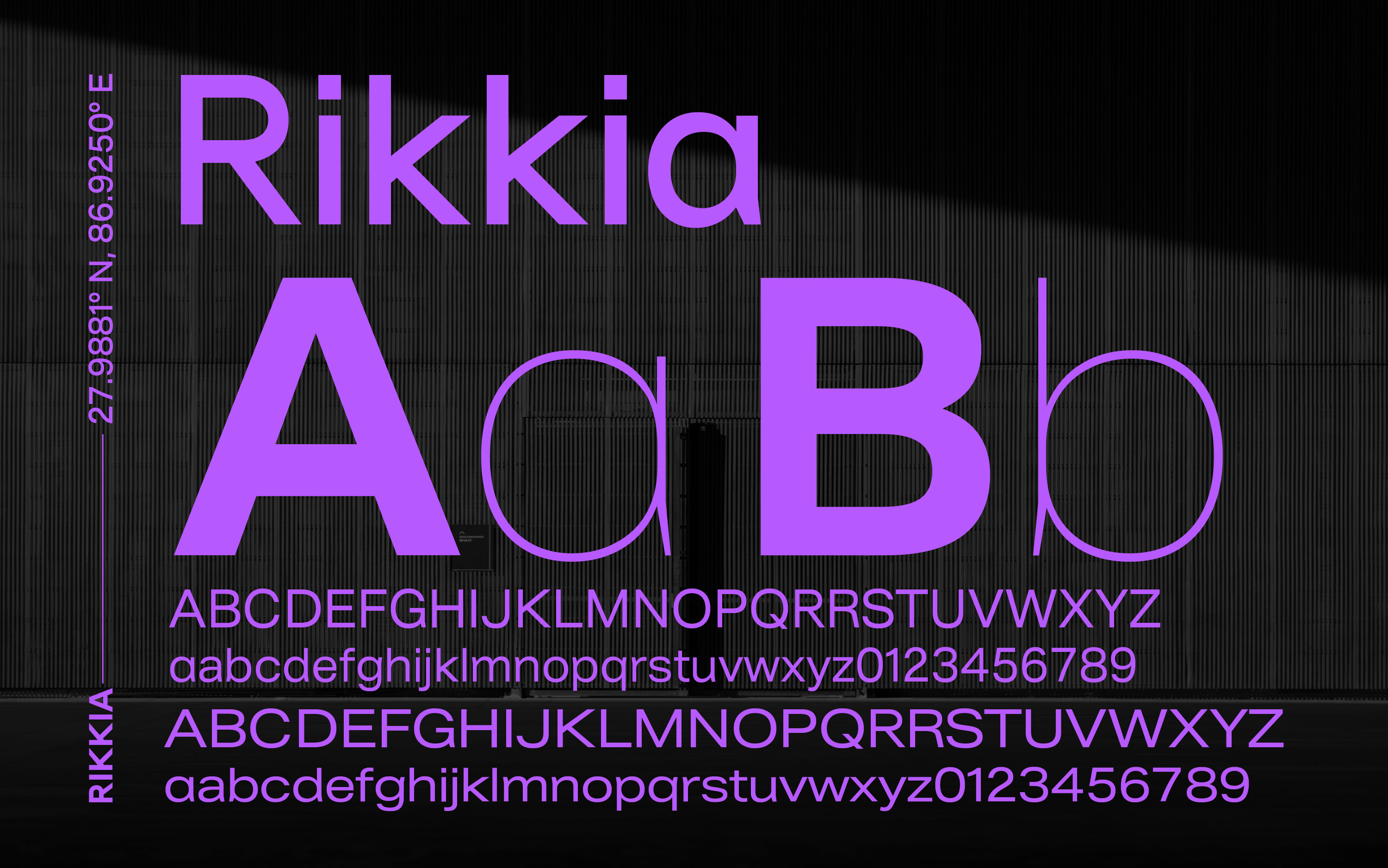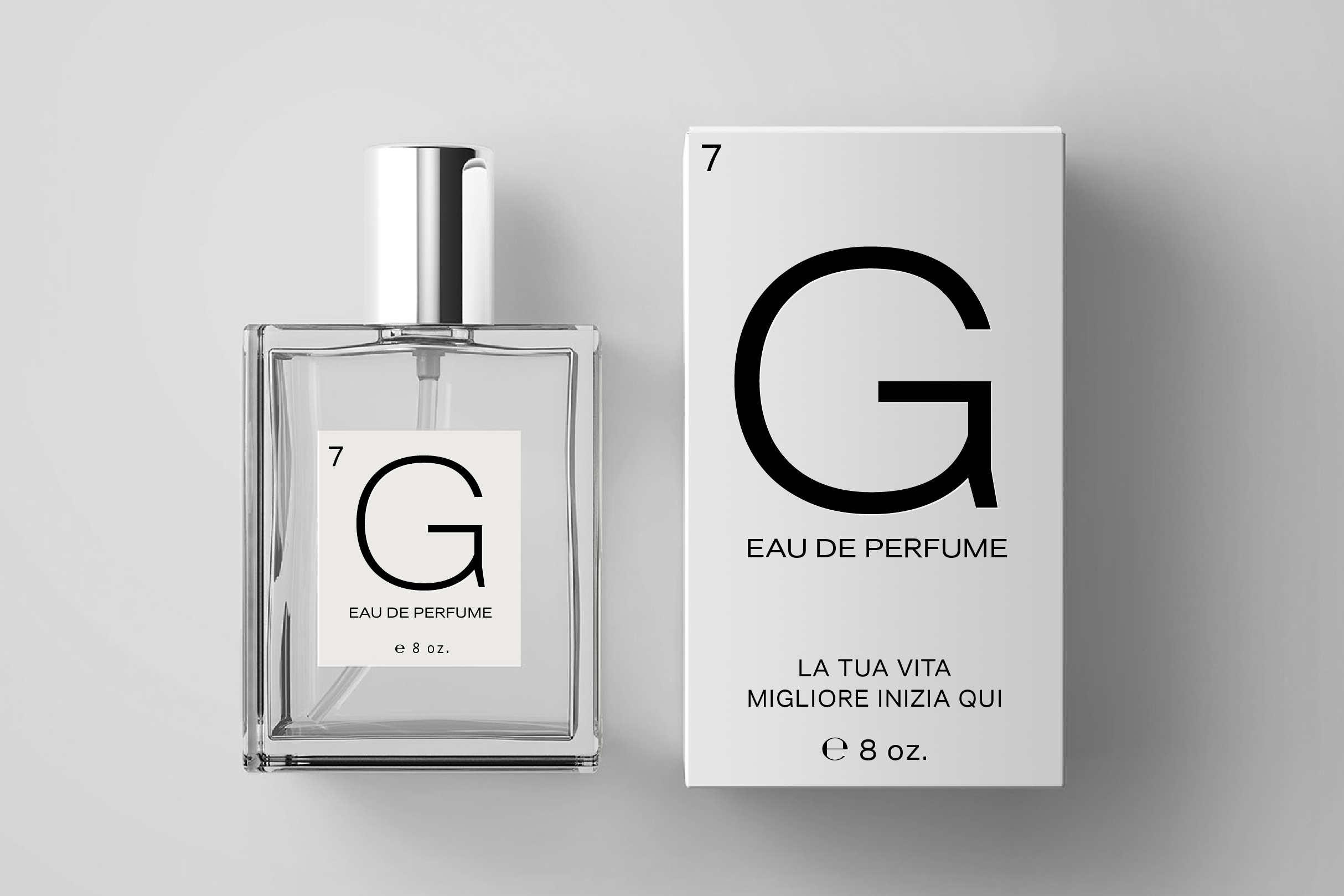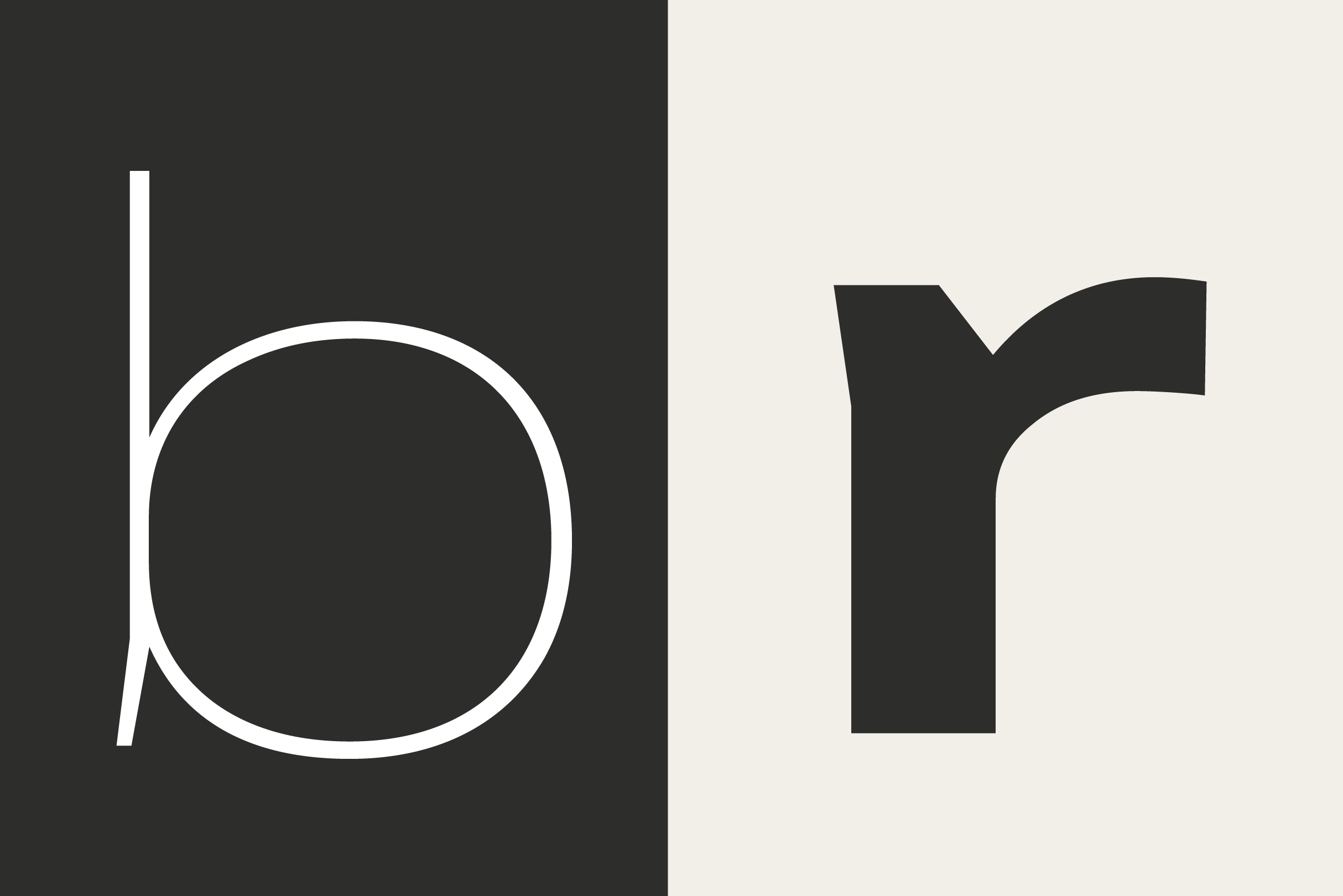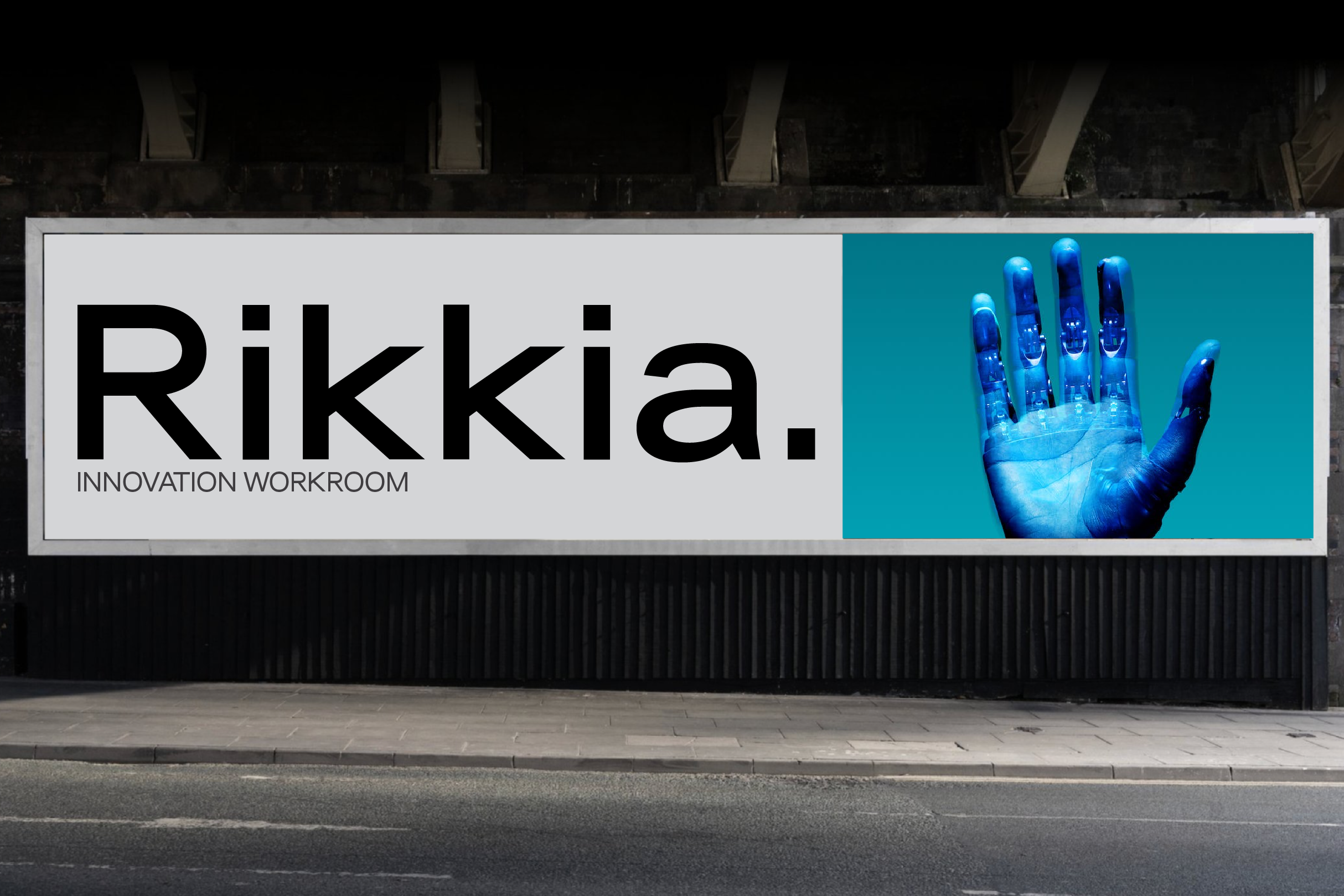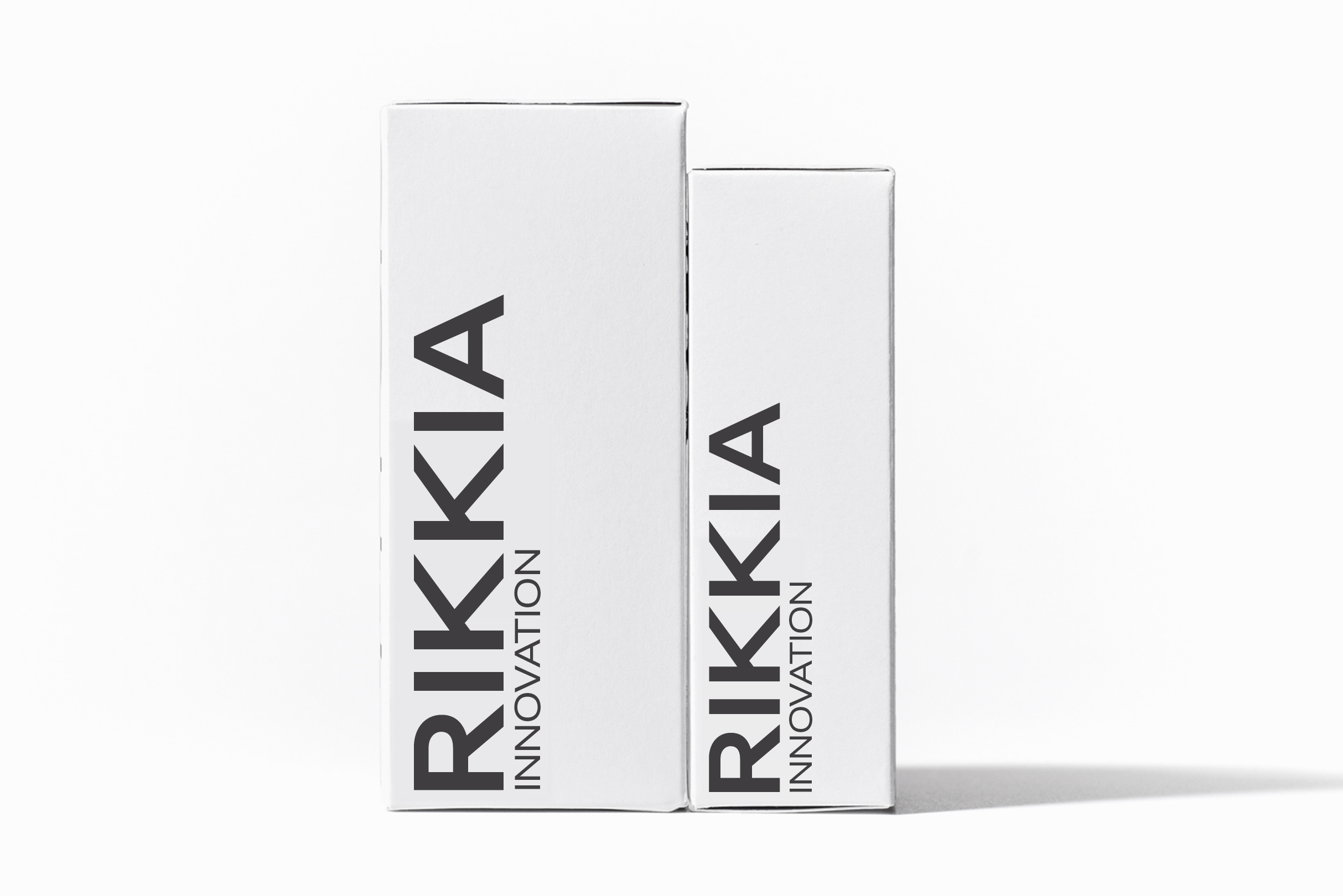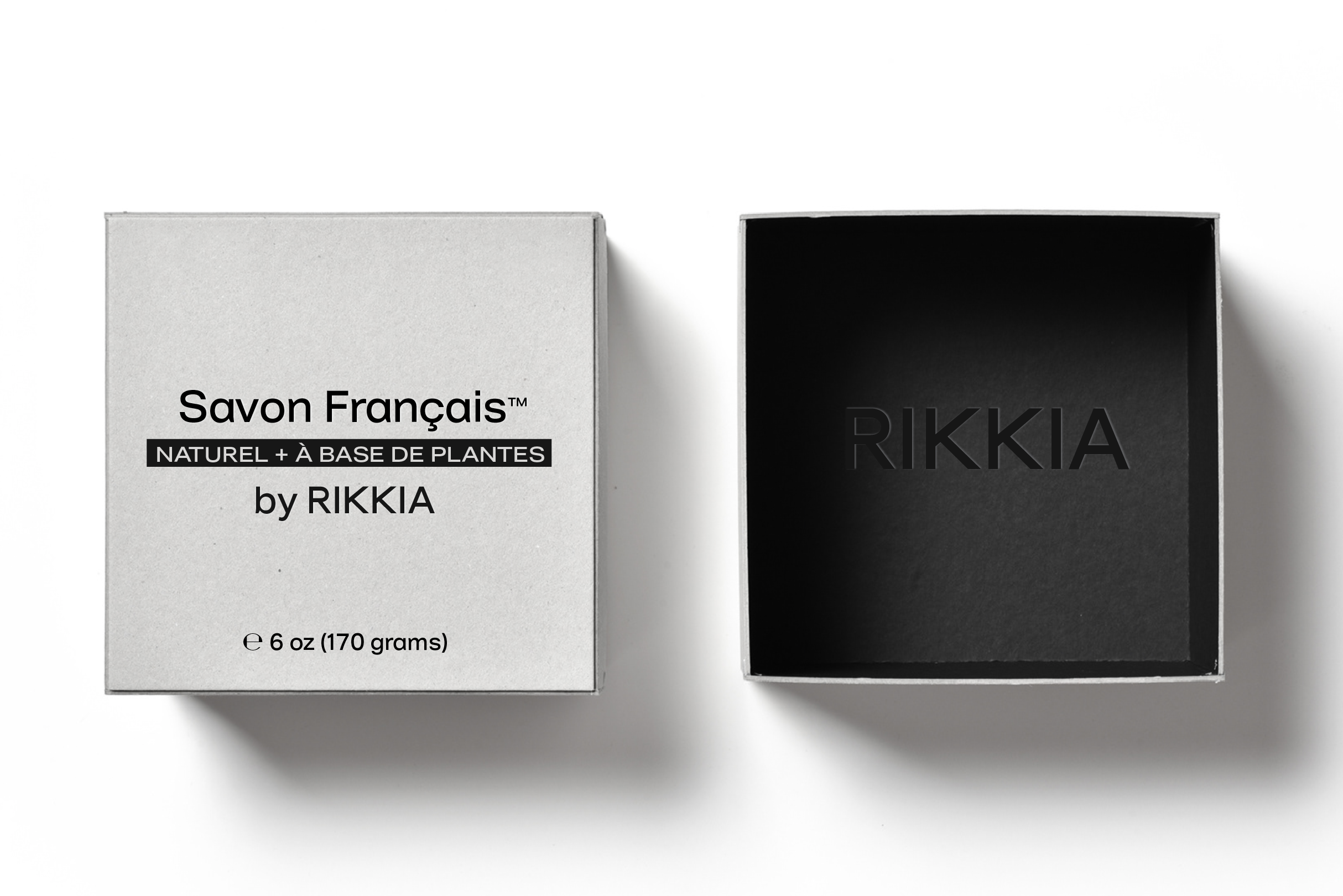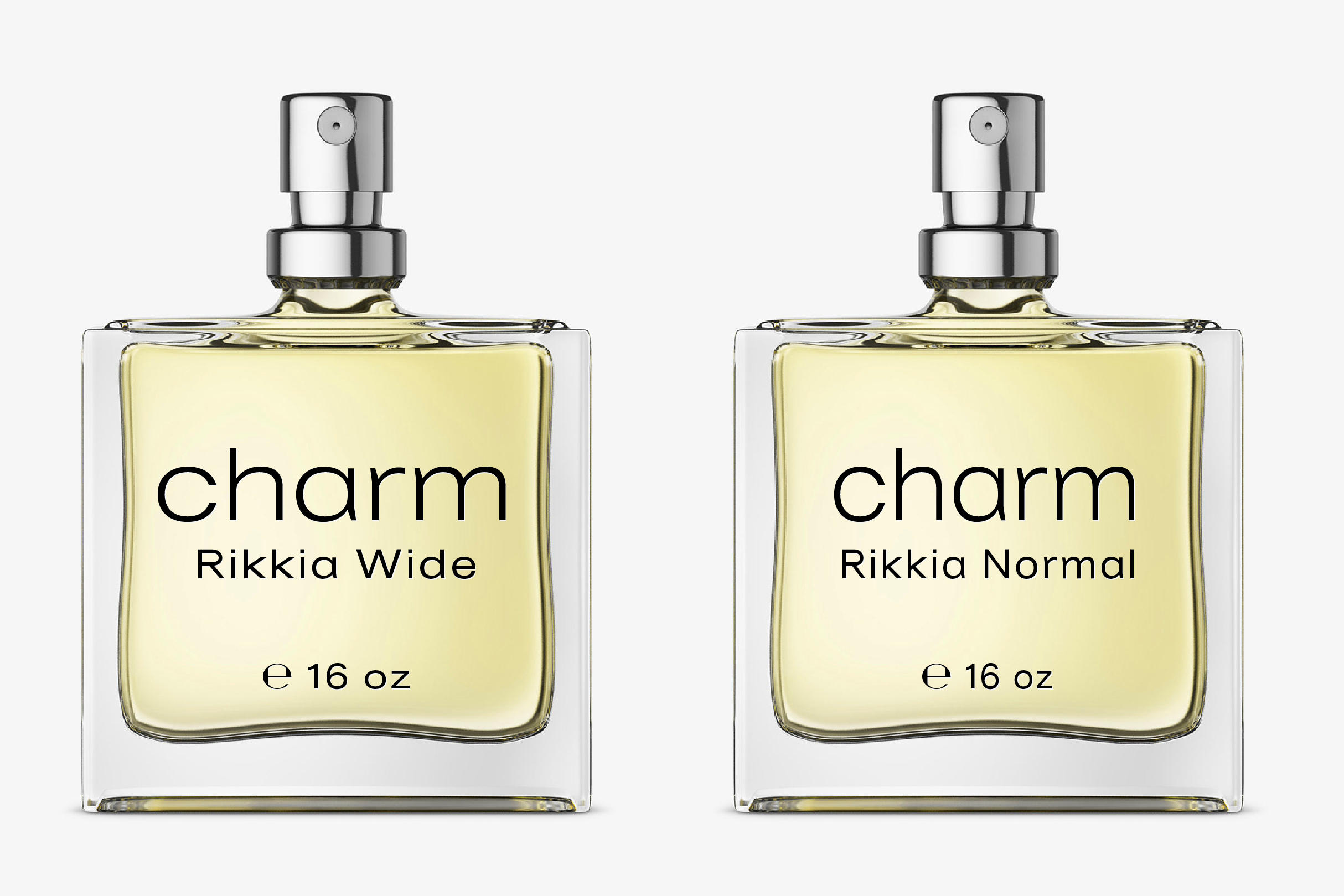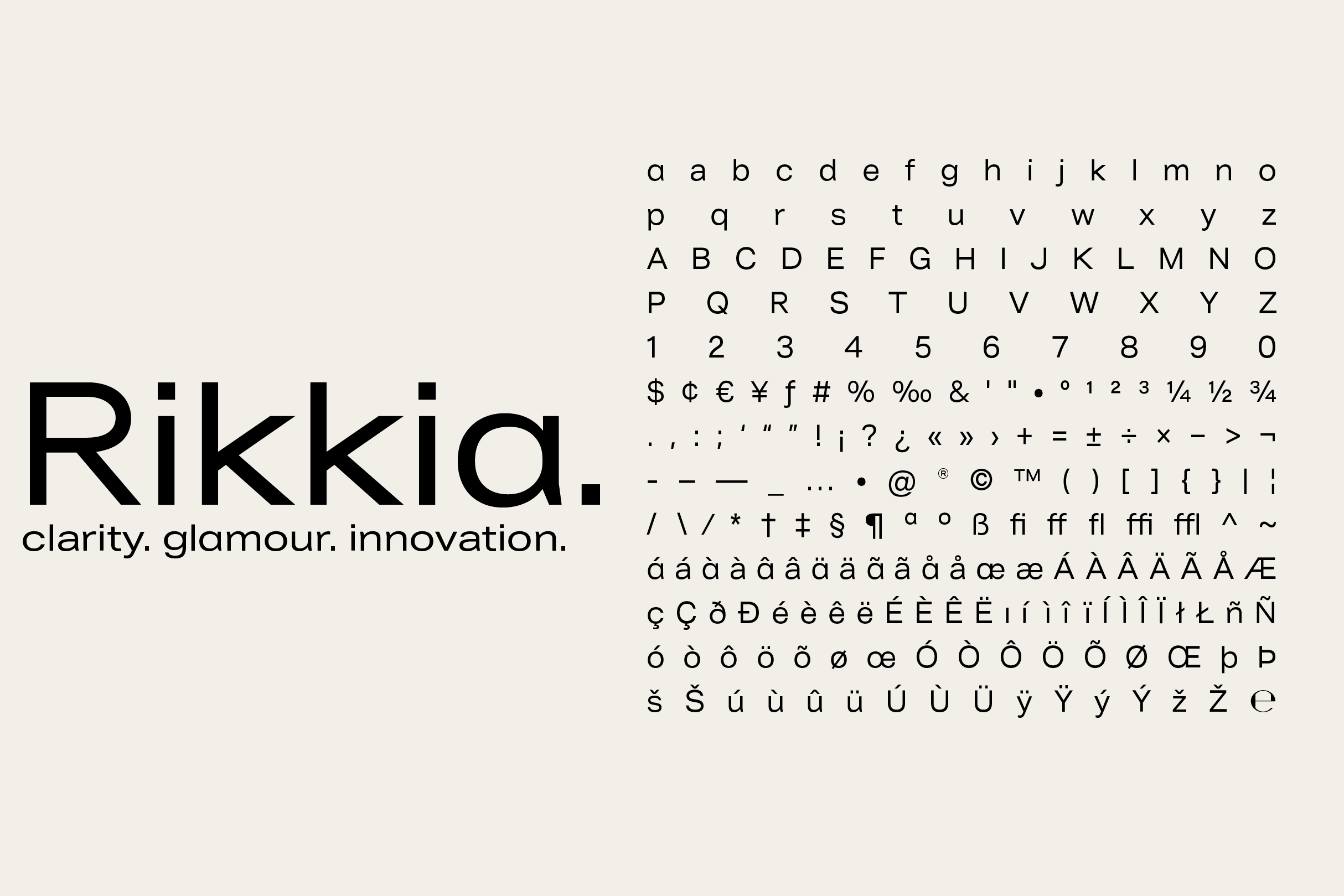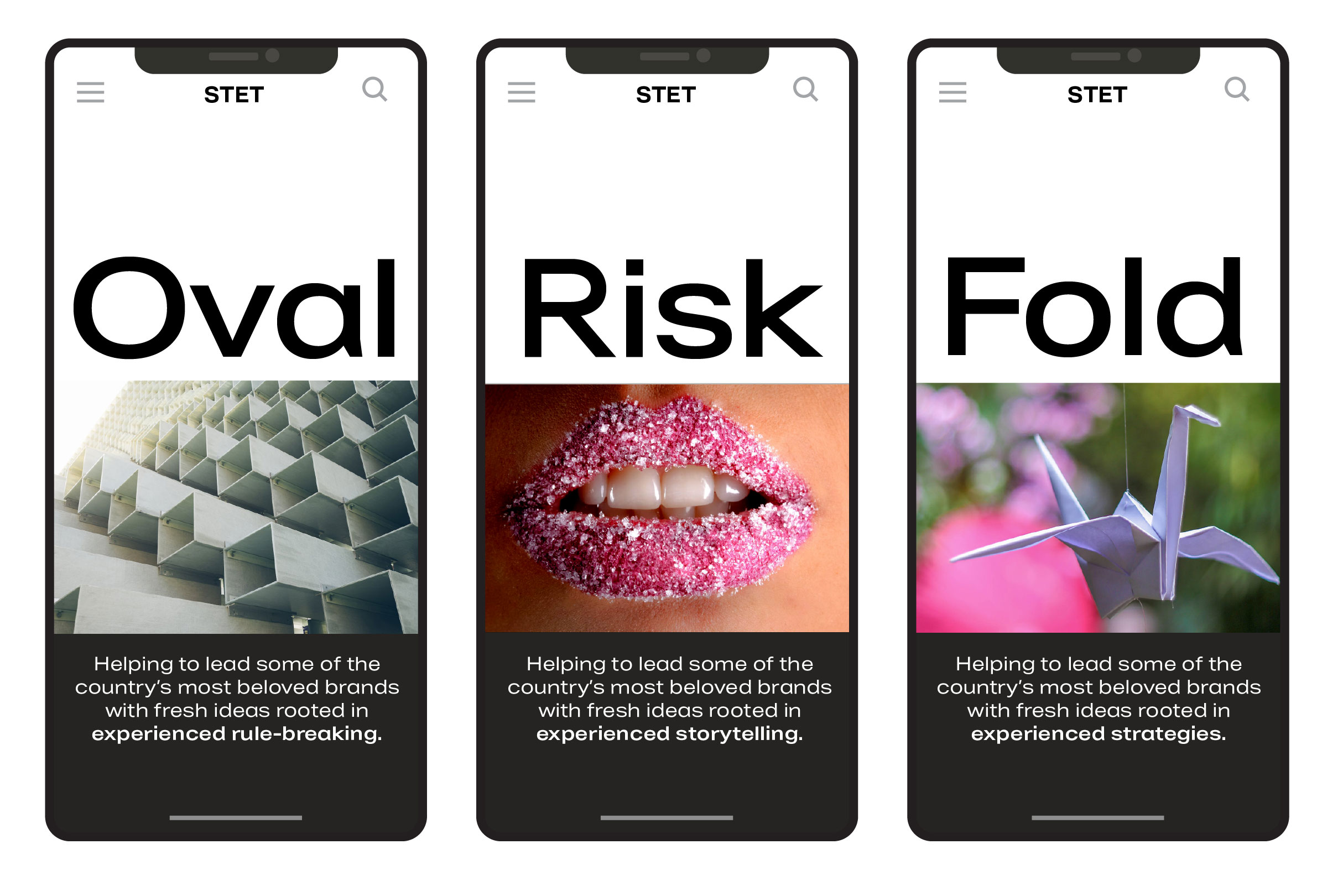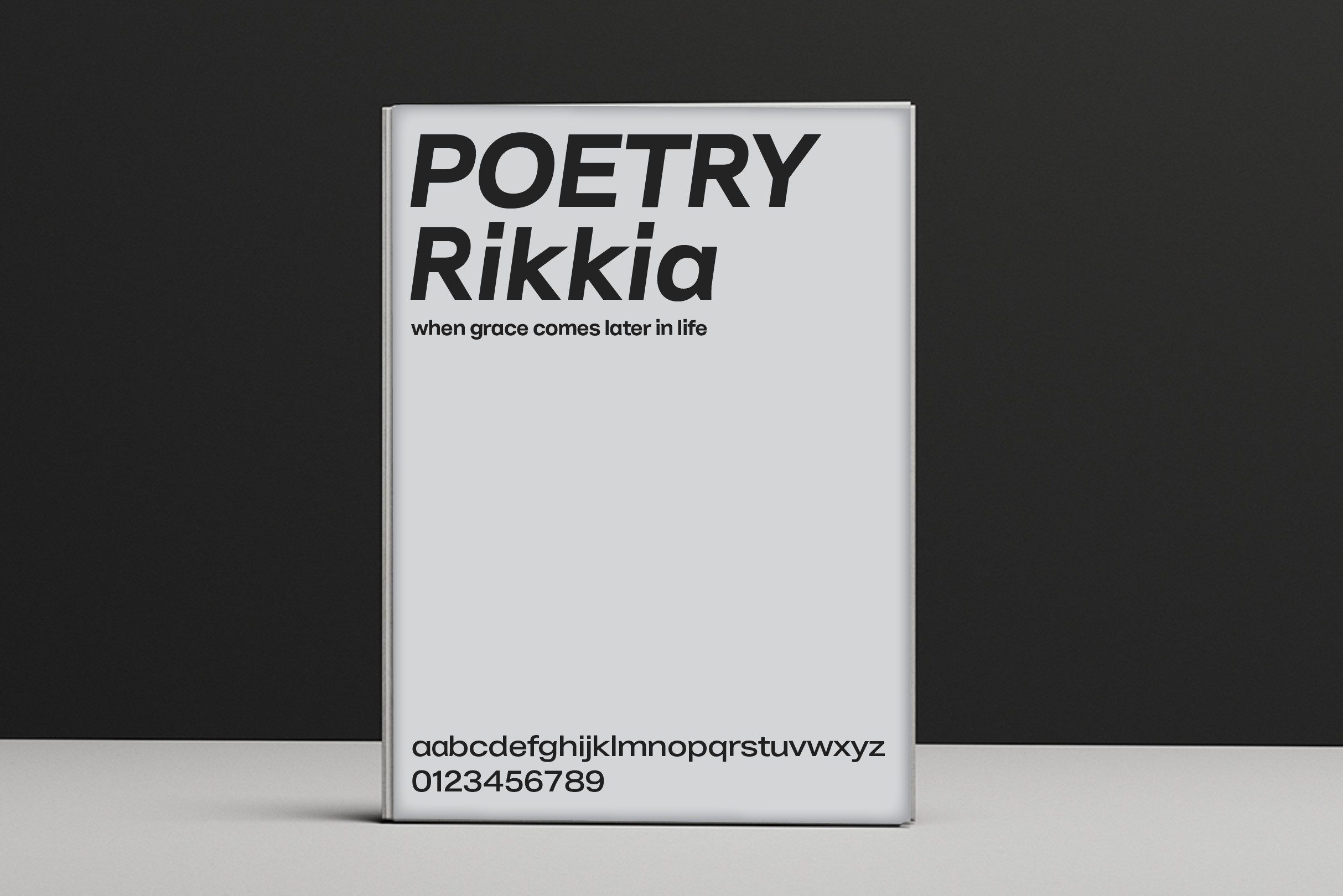
RikkiaWIDE AND REGULAR
Rikkia
Rikkia, by type designer Matt Chansky, is distinguished by modern ovals and subtle architectural angles. Rikkia has an immediate high-end look that is both timeless and universally appealing. Rikkia Wide and Regular comprise 28 styles, ranging from Hairline to Bold, as well as slanted versions of each. The font also has two different “a” options – depending on whether you feel a little more avant guarde-ish or helvetica neue-ish. A professional set of ligatures, multilingual options, fractions, and estimated symbol (as well as a few more extras). Cosmetics, engineering, editorial – and all points in between, Rikkia has you covered for a variety of visualizations. Clean, distinctive, memorable, and easily readable — an ideal choice for both print and screens.
• Comes in a beautiful wide width and normal width
• Robotics billboard
• Luxury hotel bag
• Perfume mockup
• Font Polaroid
• Modern package design font
• Package design font
• Poetry book cover design
• Luxury box design
• Designer font for mobile web design
• Big type
• Font family